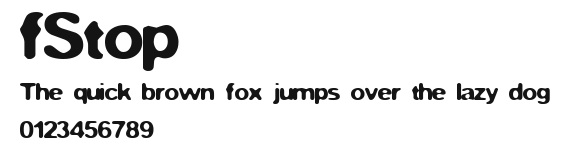
• Font Name: fStop
• Designer: Jennifer Dickert
• Manufacturer: Fat Cat Fonts
About fStop.ttf
fStop.ttf is a modern, elegant sans-serif font designed for ultimate readability and visual harmony. Perfect for branding, headlines, web design, and print materials.